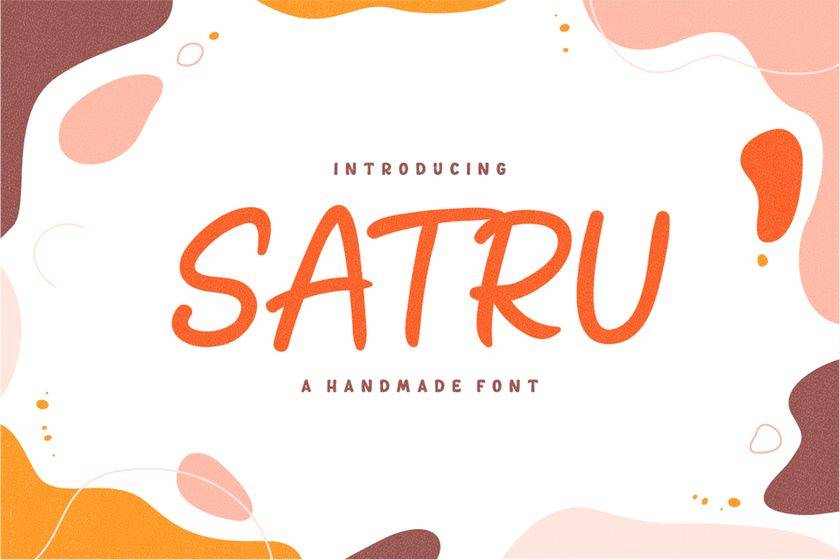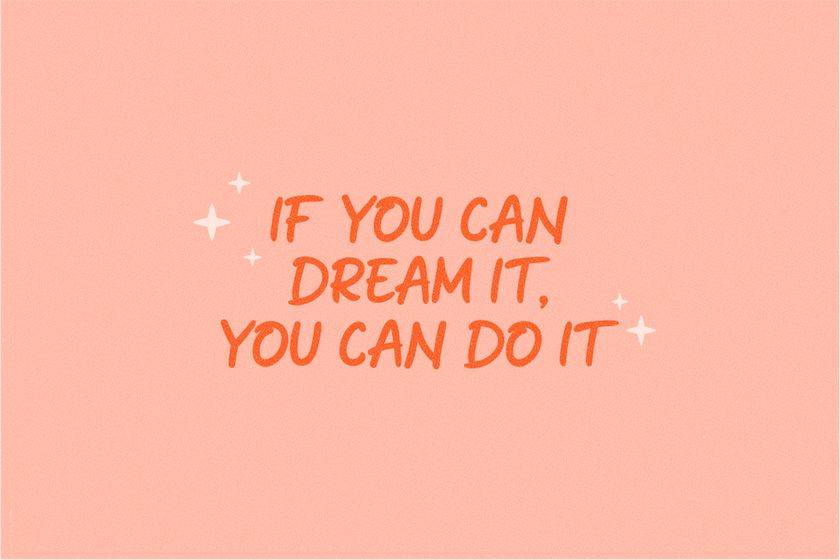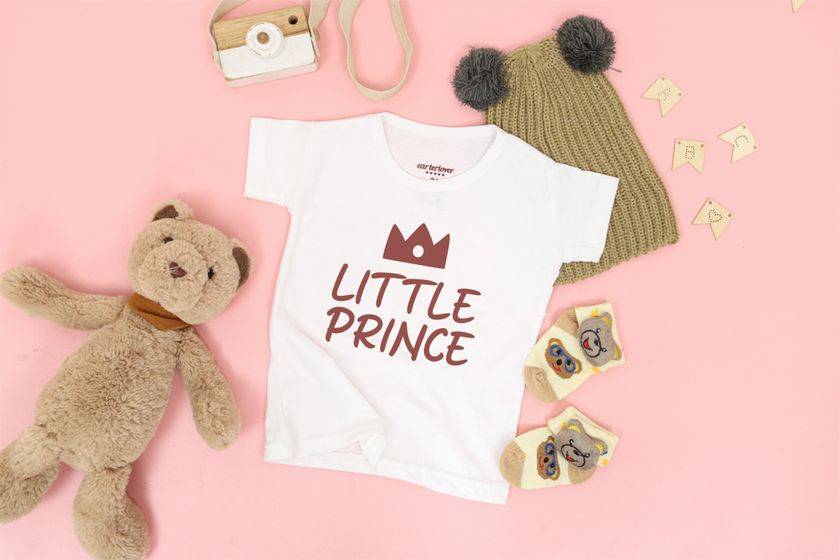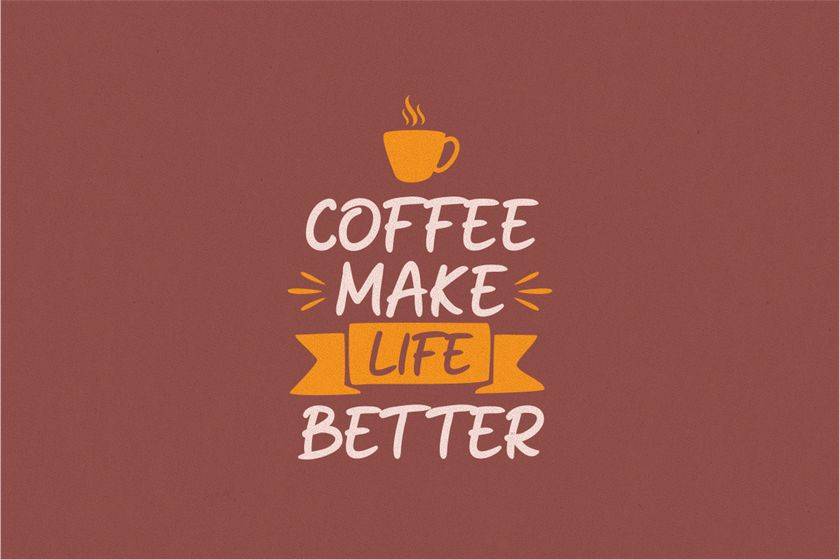
Satru is a casual, handwritten sans serif font with a friendly and approachable style. Its smooth, slightly playful strokes and moderate weight make it ideal for creative projects, informal branding, and personal communications where a warm, human touch is desired. This font works well for headlines, logos, and digital content seeking a relaxed yet clear expression.
Satru Font
About Satru Font
| Font family | Satru Font |
| Release date | 2021-11-30 |
| Designer | Vilogsign |